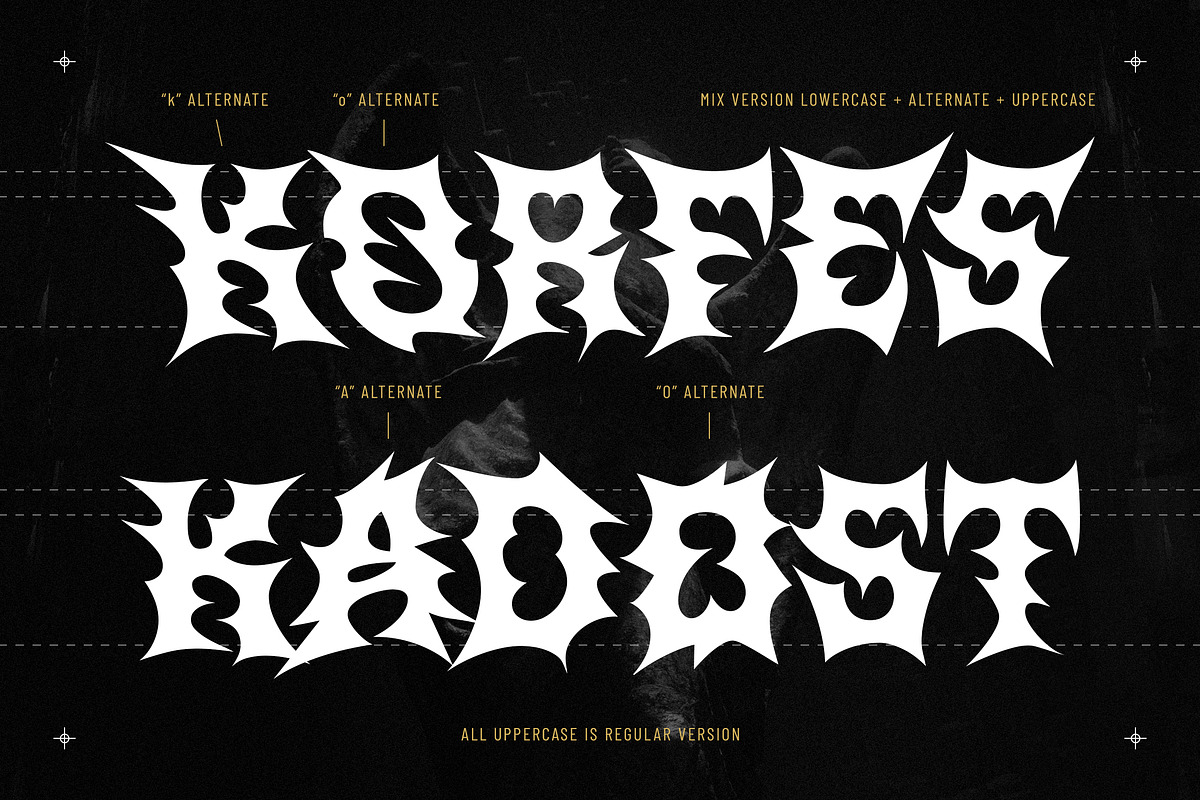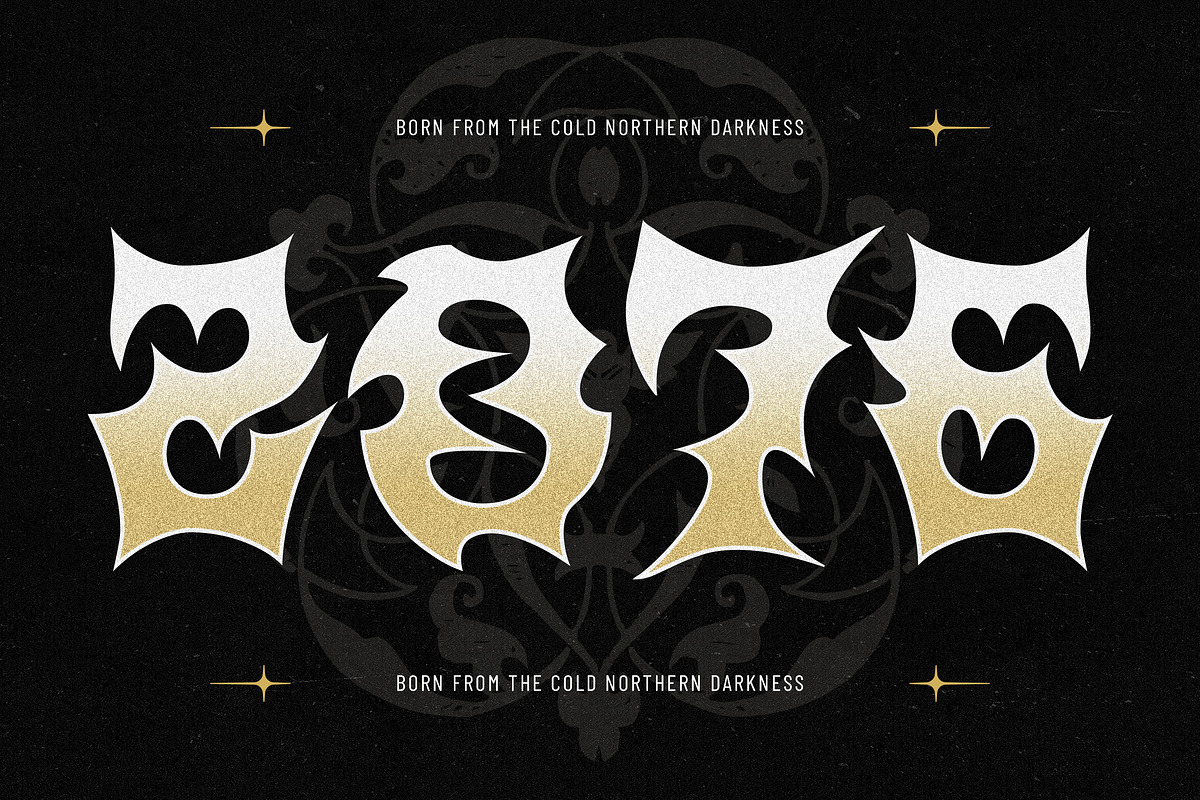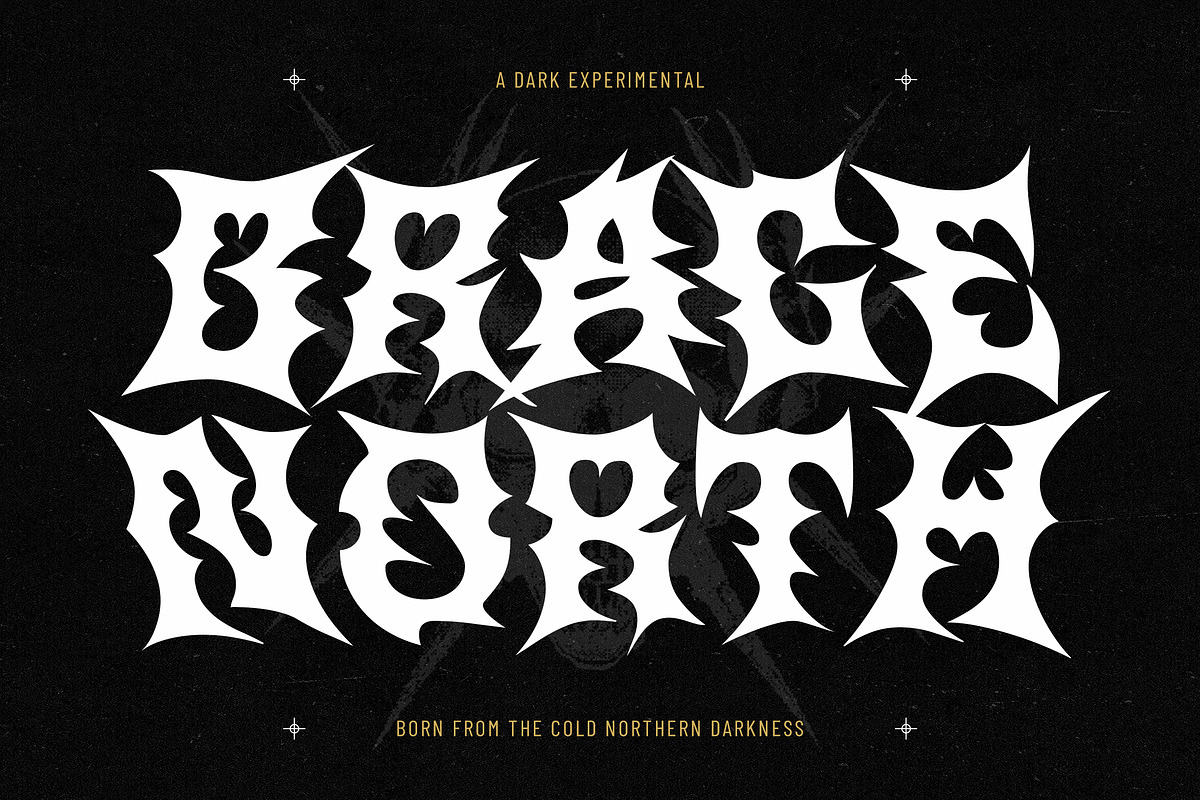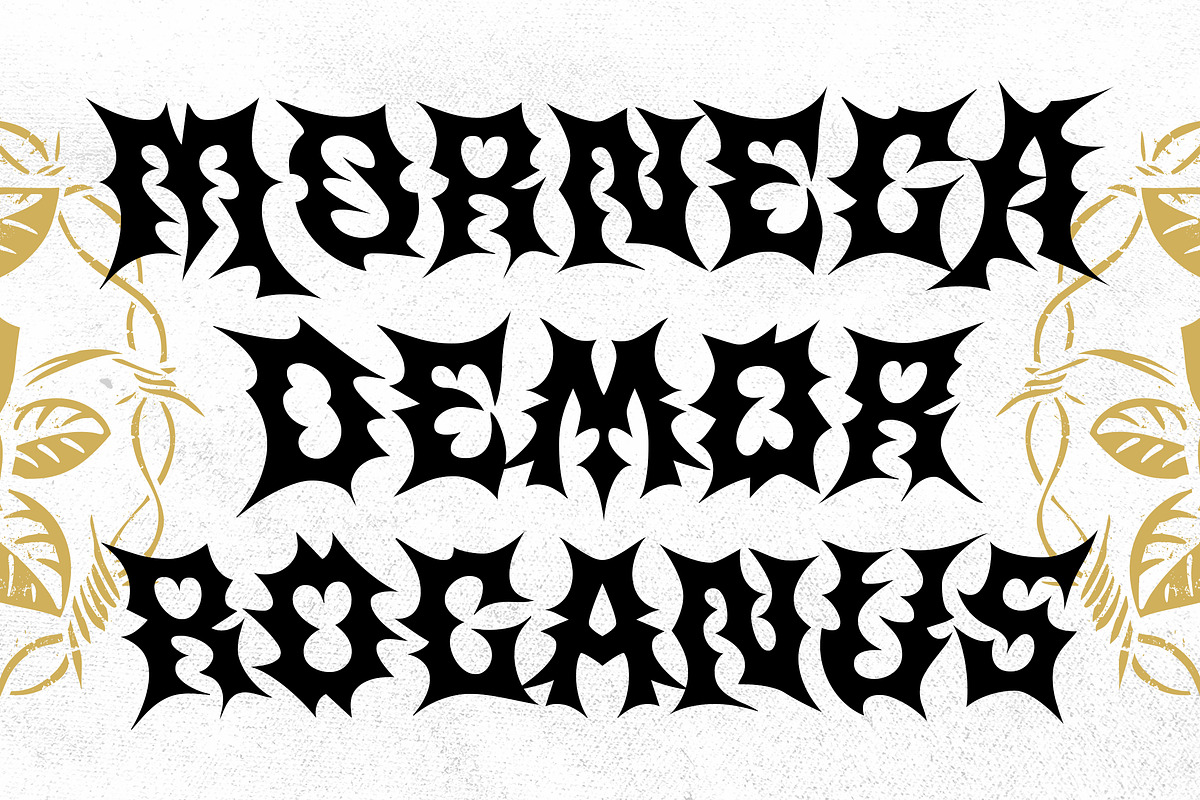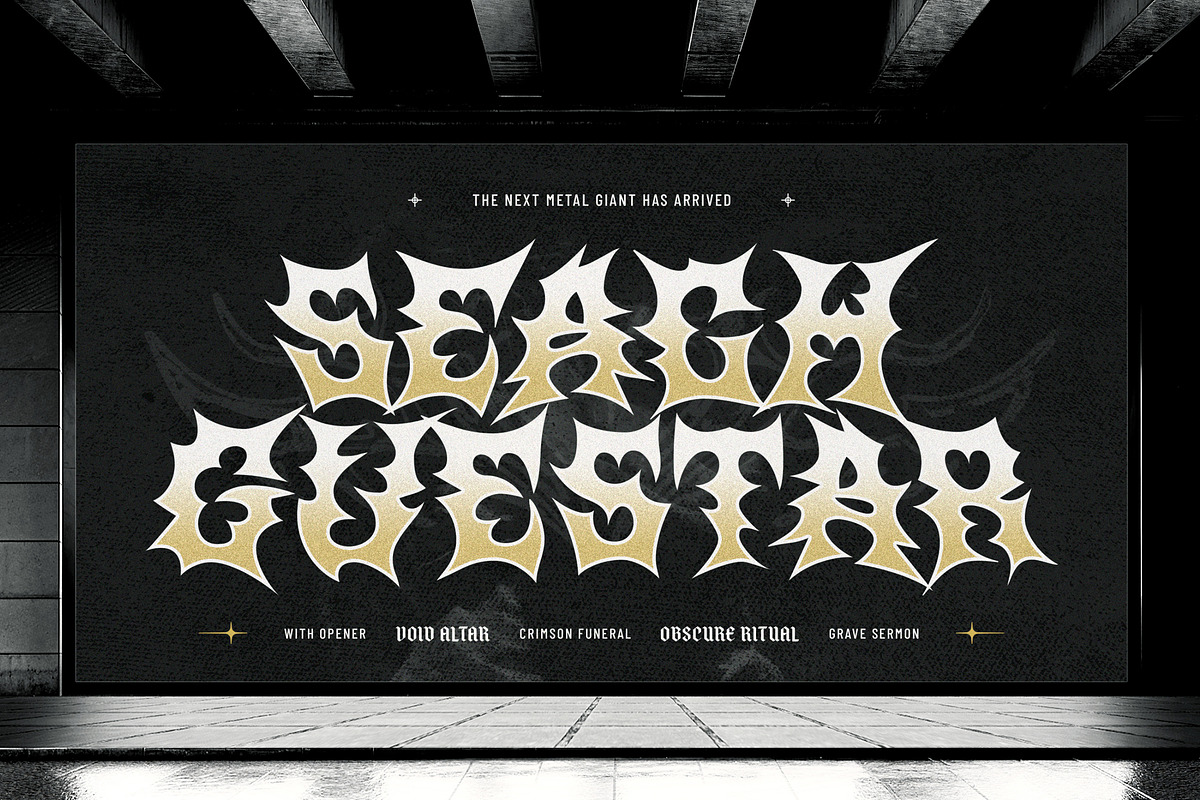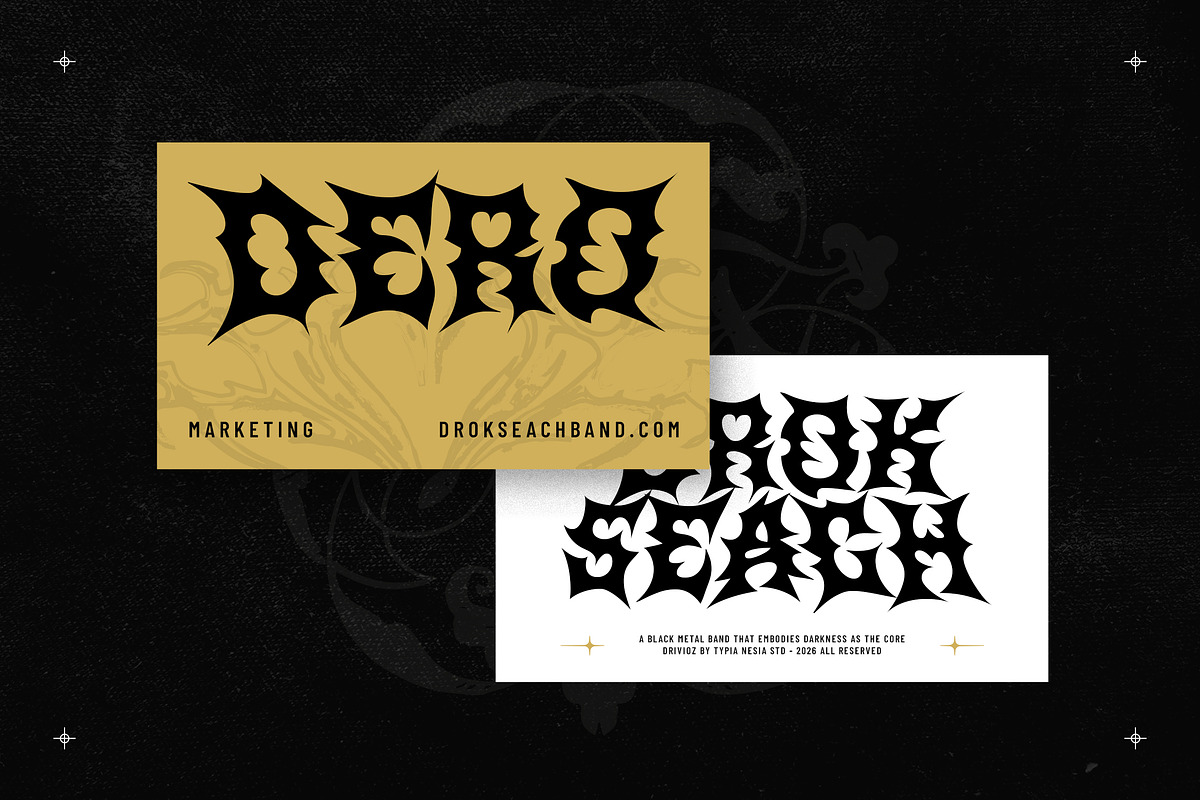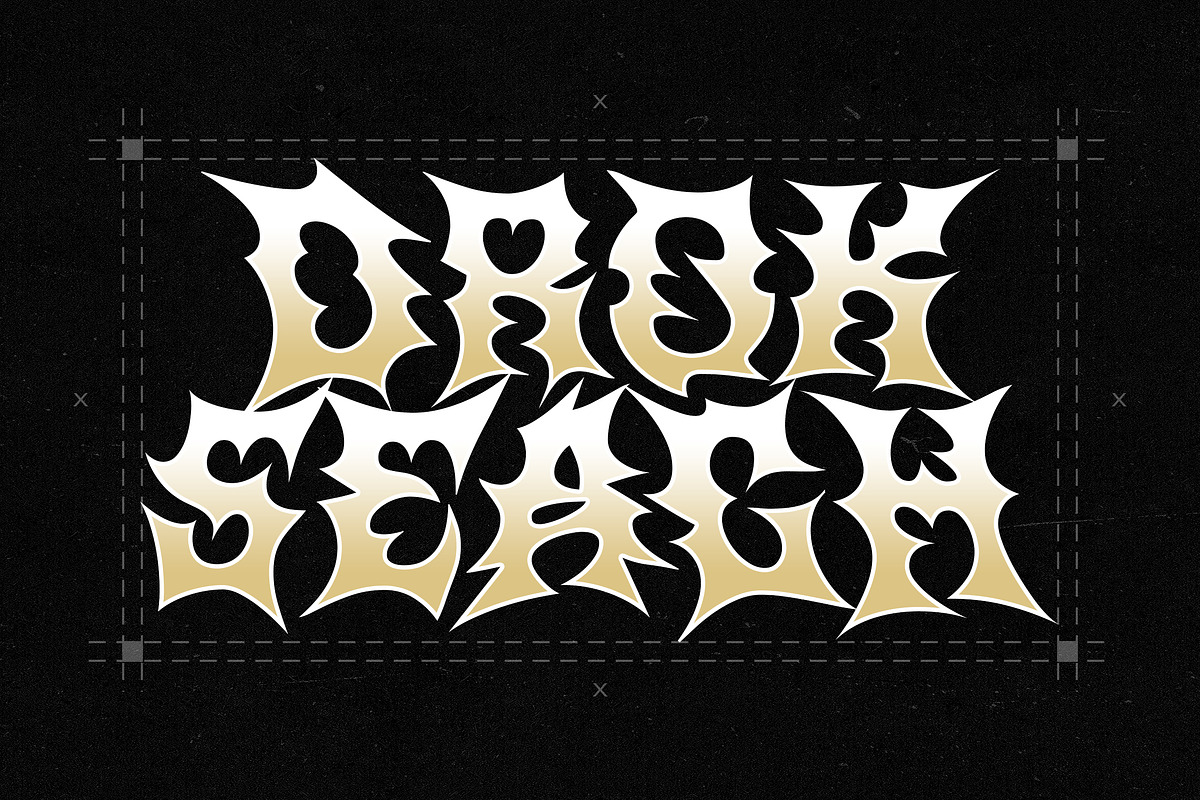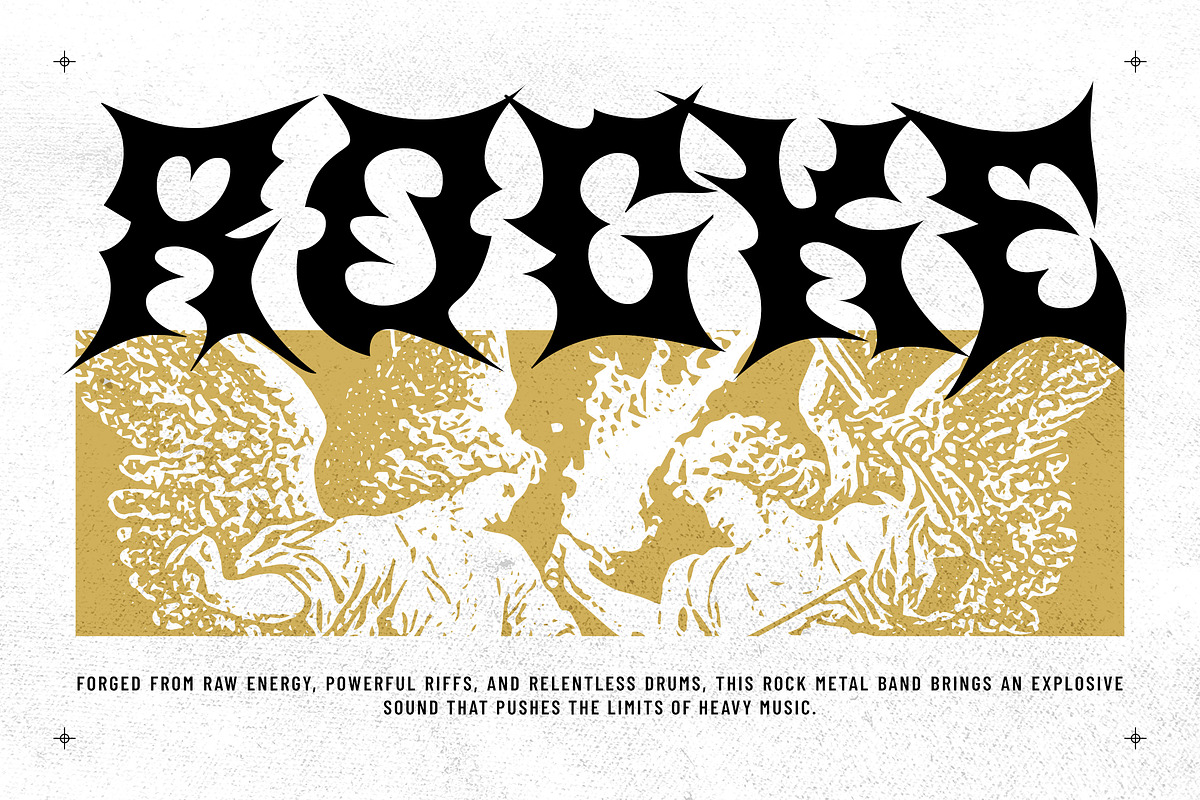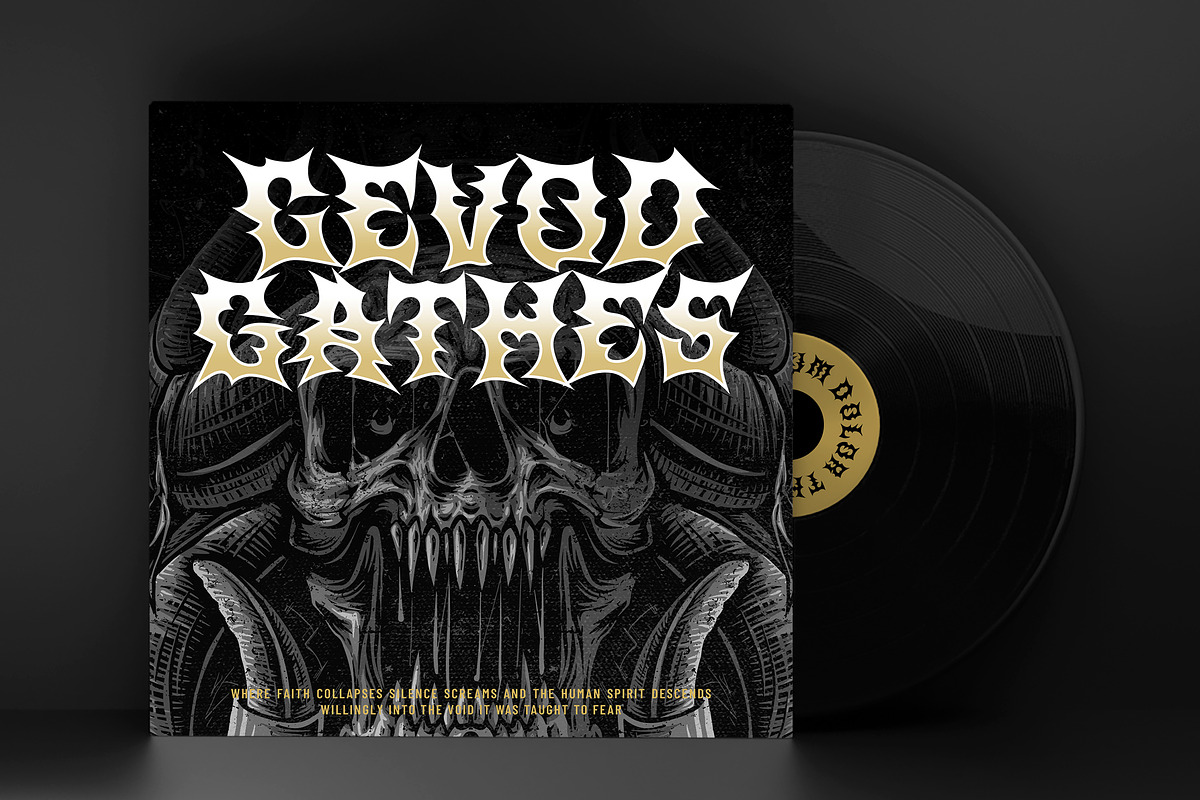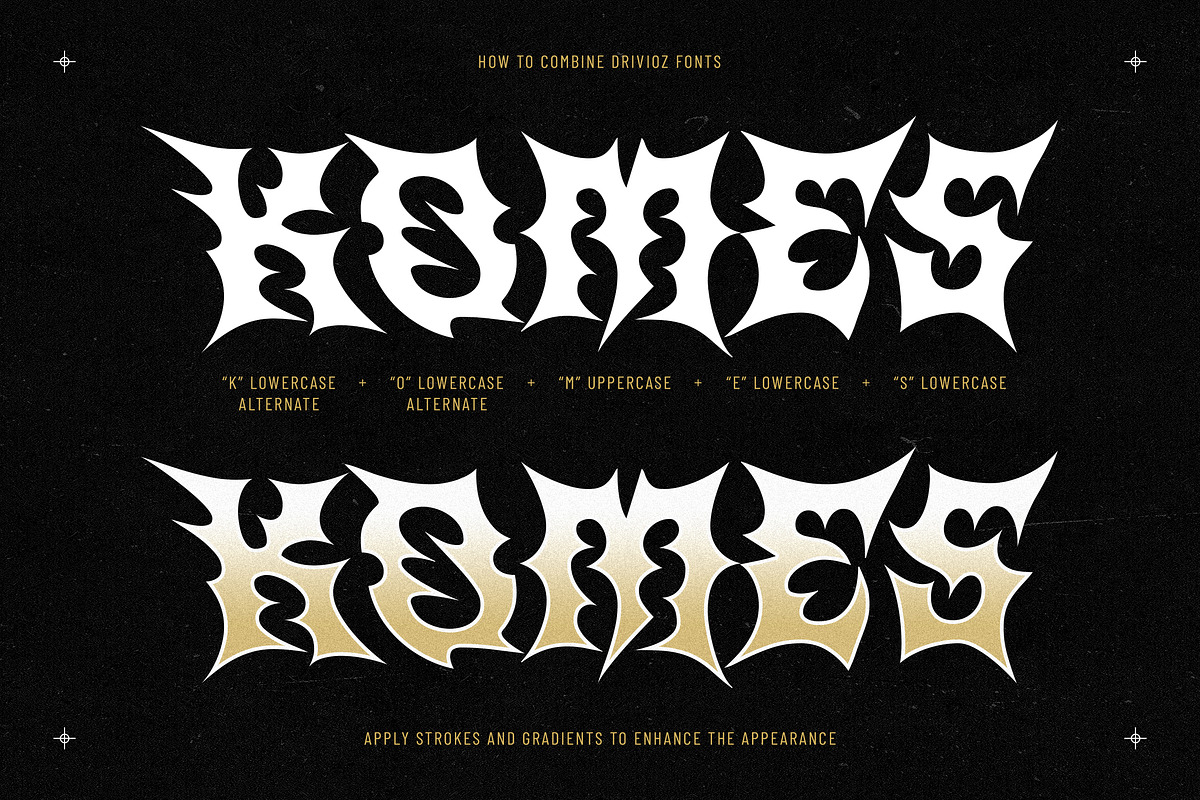
Drivioz - Black Metal Game Font
Drivioz is a fantasy black metal font featuring jagged, spiky contours and raw, aggressive letterforms. Designed to evoke power and dark mystical energy, it delivers a high-impact visual style that stands out across metal band artwork, dark fantasy media, and alternative streetwear.
Perfect for heavy metal logos, fantasy game titles, album covers, dark apparel, and horror event posters. It features sharp, intricate terminal spikes and bold silhouettes, making it versatile and easy to use across a wide range of design needs.